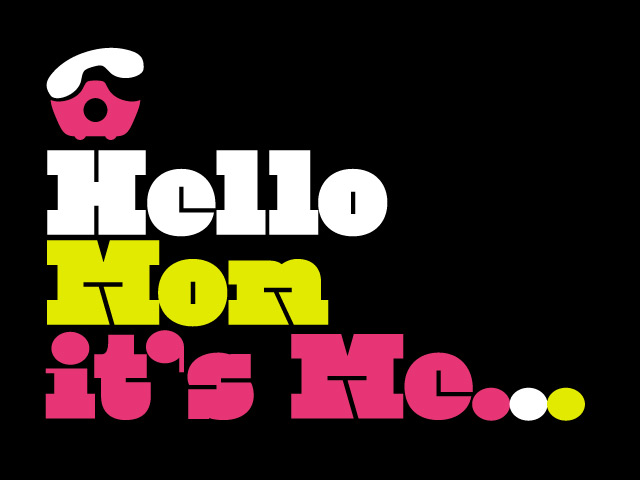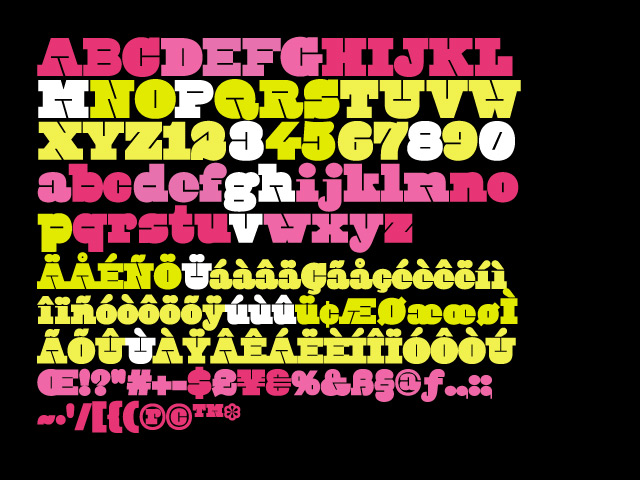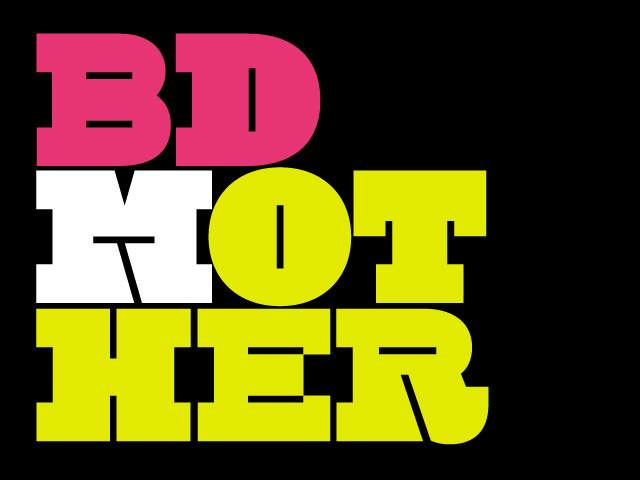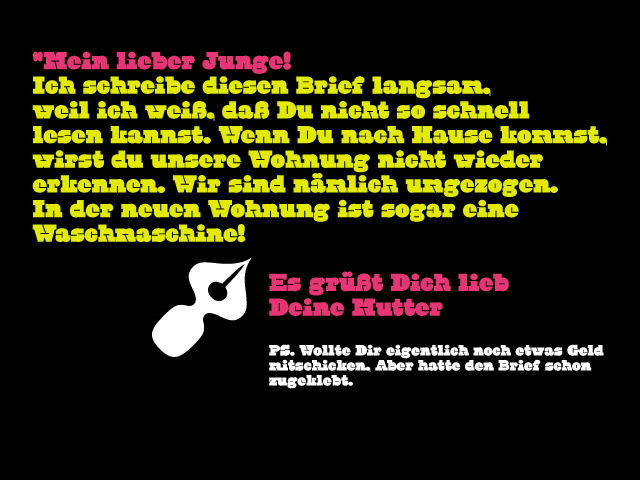
About BD Mother Font
BD Mothers’s main characteristic is the humorous blend of fat serifs, knobby curves and the thin square inner shapes. Perfect for use on posters, CD-jackets, titles in the range of cartoon, games and music. © 2007, Lopetz Büro Destruct for typedifferent.com